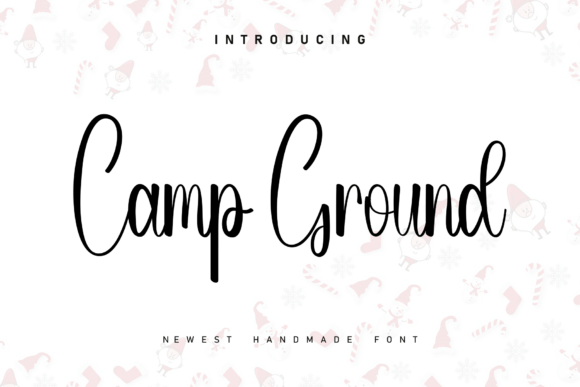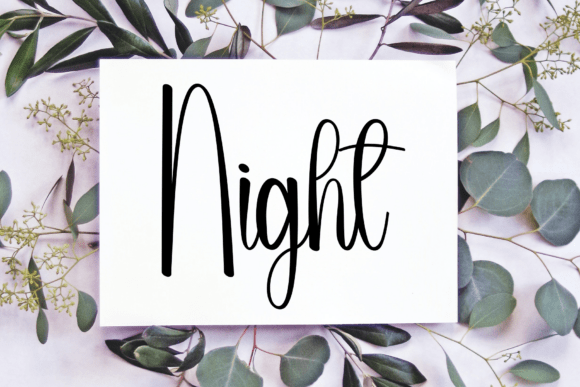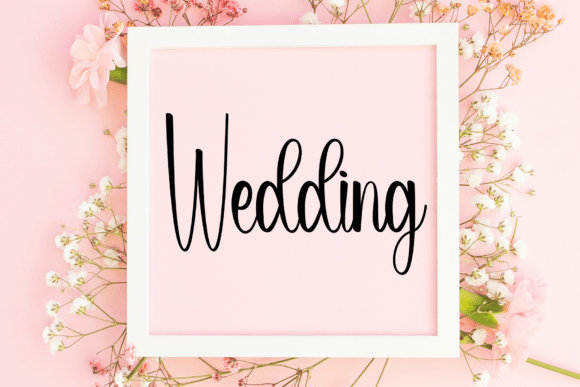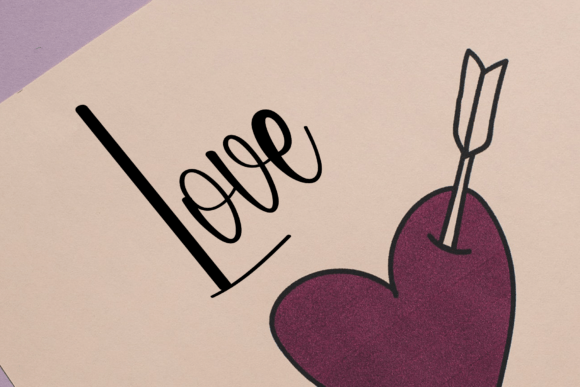
Camp Ground Script Font
Infuse your next creative endeavor with the soulful, rhythmic energy of Camp Ground. This typeface captures the effortless flow of the human touch, featuring a dynamic, shifting baseline that breathes vitality into every word. Designed for creators seeking to bridge the gap between digital precision and artisanal warmth, it serves as the perfect textural element for projects requiring an intimate, approachable, and inherently welcoming aesthetic.